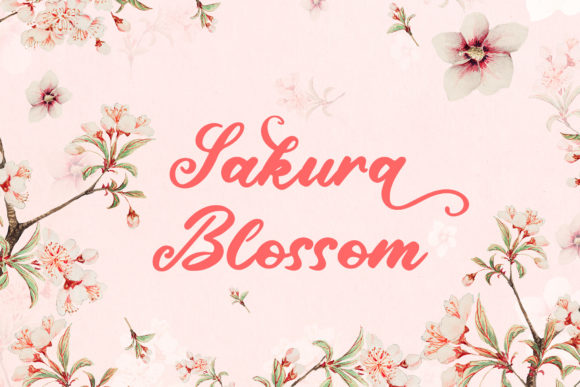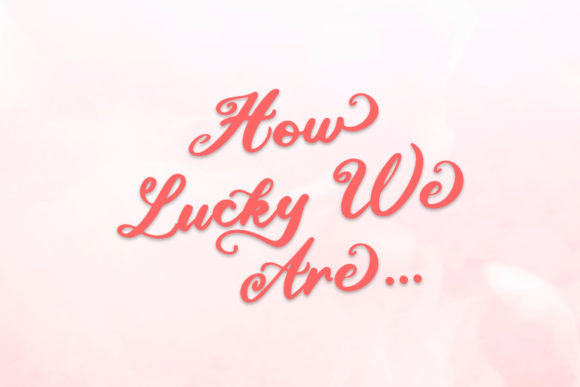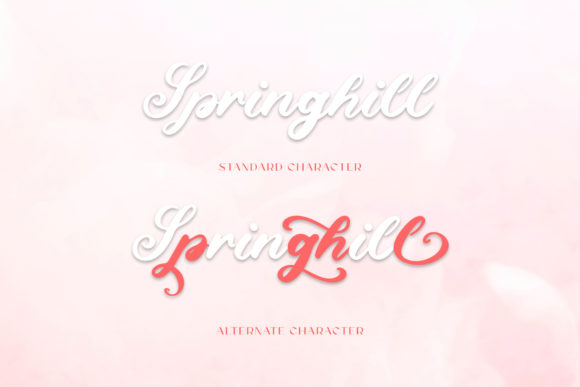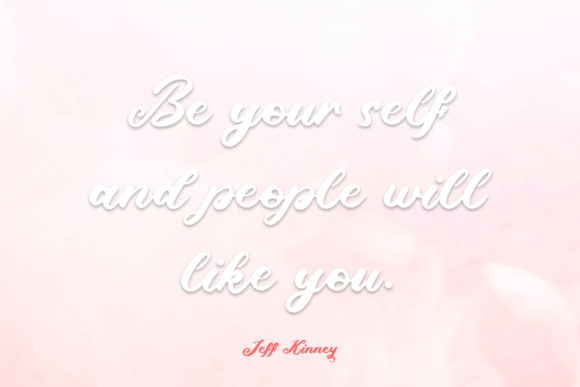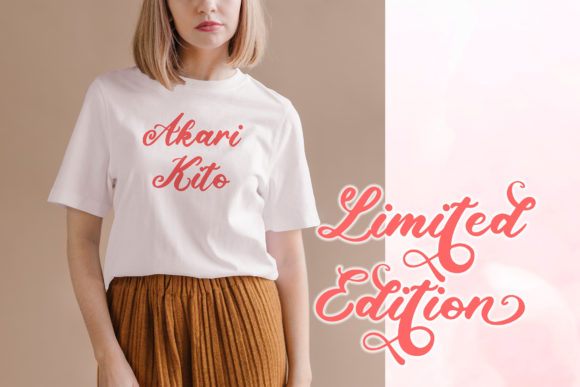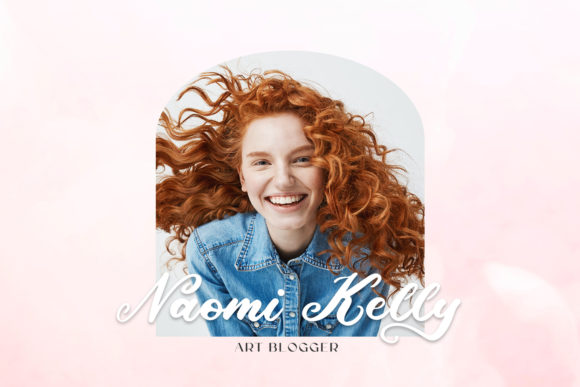
Dreamy Sakura Font: Elevate Your Designs with a Touch of Elegance
In the world of design, fonts play a crucial role in conveying the intended message and evoking emotions. Among the numerous fonts available, the Dreamy Sakura font stands out for its unique blend of elegance and charm. This lovely script font has gained popularity among designers and crafters for its versatility and aesthetic appeal. In this article, we’ll explore the features and benefits of the Dreamy Sakura font, and how it can elevate your designs to the next level.
What is Dreamy Sakura Font?
Dreamy Sakura is a beautiful script font that exudes a sense of sophistication and refinement. Its elegant strokes and flowing curves make it perfect for designs that require a touch of luxury and glamour. Whether you’re creating quotes, titles, brand names, book covers, posters, or any other visual content, this font is an excellent choice.
Key Features of Dreamy Sakura Font
So, what makes Dreamy Sakura font special? Here are some of its key features:
- PUA Encoding: The Dreamy Sakura font is PUA (Private Use Area) encoded, which means you can access all the glyphs and swashes with ease. This feature allows you to create stunning designs with a wide range of characters and ornaments.
- Script Font: As a script font, Dreamy Sakura features elegant, cursive strokes that add a touch of sophistication to your designs.
- Versatility: This font is highly versatile and can be used for various design projects, from digital graphics to print materials.
Benefits of Using Dreamy Sakura Font
Using the Dreamy Sakura font in your designs offers several benefits:
- Elegance and Sophistication: The font’s elegant strokes and flowing curves add a touch of luxury and glamour to your designs.
- Emotional Connection: The Dreamy Sakura font evokes feelings of serenity and peacefulness, making it perfect for designs that require a emotional connection with the audience.
- Flexibility: The font’s versatility allows you to use it for various design projects, from digital graphics to print materials.
Use Cases for Dreamy Sakura Font
The Dreamy Sakura font is suitable for a wide range of design projects, including:
- Quotes and Titles: Use the font to create stunning quotes and titles that add a touch of elegance to your designs.
- Brand Names: The font’s unique and memorable style makes it perfect for creating brand names that stand out.
- Book Covers: Add a touch of sophistication to your book covers with the Dreamy Sakura font.
- Posters: Use the font to create eye-catching posters that grab the audience’s attention.
Tips for Using Dreamy Sakura Font
Here are some tips for using the Dreamy Sakura font effectively:
- Pair with Other Fonts: Experiment with pairing the Dreamy Sakura font with other fonts to create a unique and visually appealing design.
- Adjust Font Size and Color: Adjust the font size and color to create a harmonious balance in your design.
- Use Swashes and Glyphs: Take advantage of the font’s PUA encoding and use the swashes and glyphs to add a touch of elegance to your design.
In conclusion, the Dreamy Sakura font is a lovely script font that offers a unique blend of elegance and charm. Its versatility, PUA encoding, and emotional connection make it perfect for various design projects. Whether you’re a designer or crafter, this font is a great choice for adding a touch of sophistication to your designs. So, download the Dreamy Sakura font today and elevate your designs to the next level!